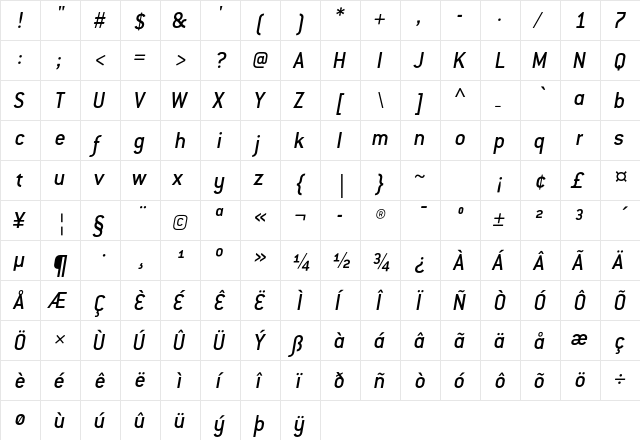
ConduitITCStd MediumItalic Font Preview
| Foundry | International Typeface Corporation |
| Designer | Mark van Bronkhorst, MvB Design |
Design Context for ConduitITCStd Typeface
ConduitITCStd takes a measured approach to typography — its balanced proportions and neutral character make it a reliable workhorse for both digital and print work. The dynamic lean of this cut emphasises speed and emphasis in any layout. The condensed width makes it efficient for tight spaces without sacrificing legibility.
Pro Tip: Use ConduitITCStd for emphasis, pull quotes, and subheadings where its slanted energy can add rhythm to the layout.